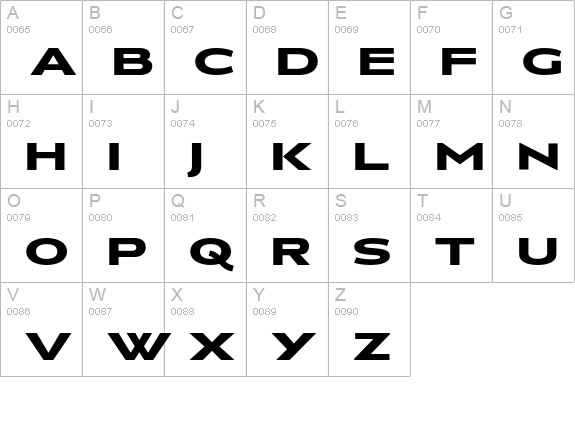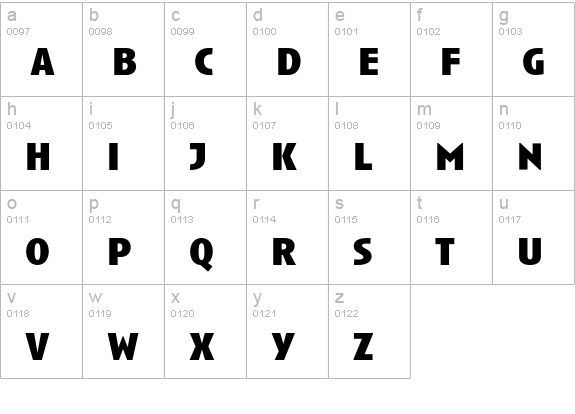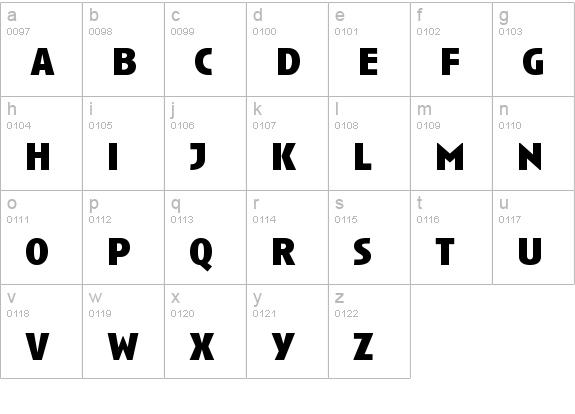
Anisette-Bold Font Details
Anisette-Bold is a strong, high-contrast variant in the Anisette typeface family \xE2\x80\x94 well suited to headlines, attention-grabbing titles, and strong calls-to-action.
Anisette-Bold is a striking and versatile font that exudes elegance and sophistication. With its bold and commanding presence, this typeface is perfect for making a statement in any design project. The clean lines and sharp edges of Anisette-Bold give it a modern and stylish look that is sure to capture attention. What makes Anisette-Bold even more appealing is that it is free to download at FontsMarket.com. This means that you can easily access this high-quality font without any cost, making it a valuable addition to your font collection. Whether you are working on a branding project, a poster design, or any other creative endeavor, Anisette-Bold will elevate your work with its bold and impactful aesthetic. So why wait? Download Anisette-Bold now from FontsMarket.com and take your designs to the next level with this exceptional font.